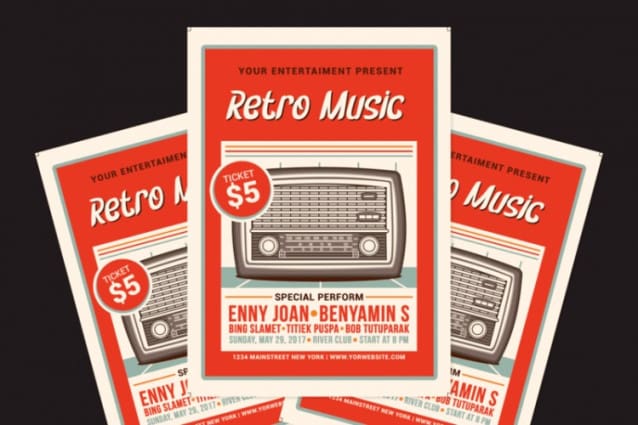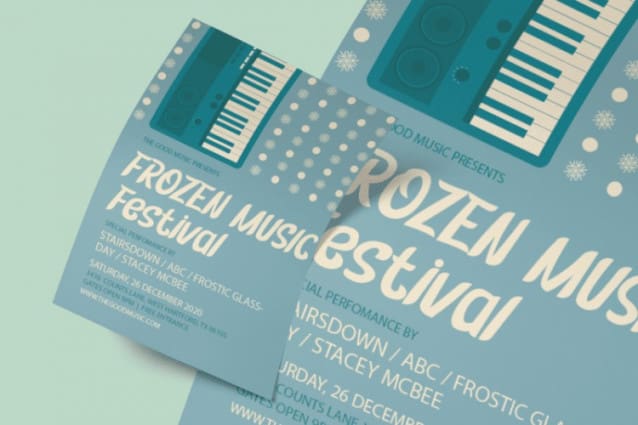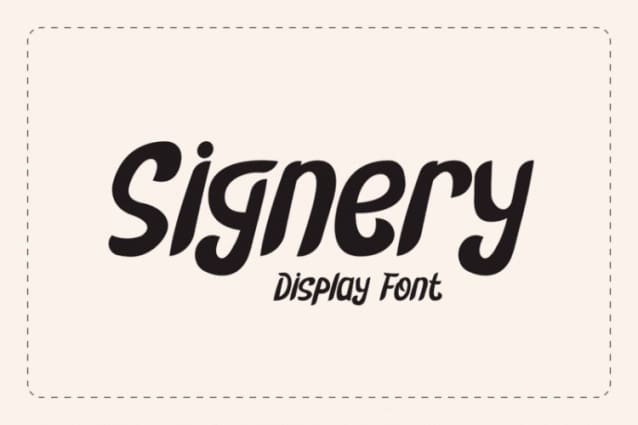
Signery Display Font
Signery Display Font is a captivating display font that combines retro flair with playful elegance. This bold typeface brings fun and nostalgia to your projects, making it ideal for designers who want a unique style. With smooth curves and distinctive letter shapes, Signery Display adds lively character to branding, posters, and social media graphics. Moreover, its retro-inspired design creates an eye-catching look, helping your message stand out with a fresh yet timeless feel. Therefore, Signery’s vintage aesthetic and personality make it a versatile addition to any designer’s toolkit.
Signery’s friendly style works especially well for brands in the creative, fashion, and lifestyle industries. It easily engages audiences and conveys warmth, inviting people to connect with the design. As a result, this font is perfect for projects that aim to make a lasting impression with an inviting tone. Whether in bold headlines or small design accents, Vintage Font Signery captures attention and adds a unique flair to any composition. With Signery, you can create designs that are both visually appealing and evocative of nostalgia.